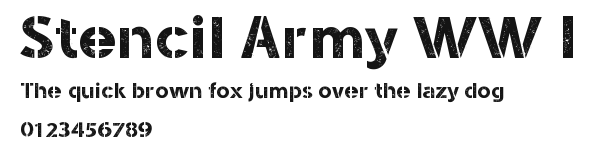
Stencil Army WW I Preview
• Font Name: Stencil Army WW I
• Full Font Name: Stencil Army WW I
• Designer: © Galdino Otten. 2013. All Rights Reserved
• Manufacturer: Galdino Otten
About Stencil Army WW I.ttf
Stencil Army WW I.ttf is a modern, elegant sans-serif font designed for ultimate readability and visual harmony. Perfect for branding, headlines, web design, and print materials.